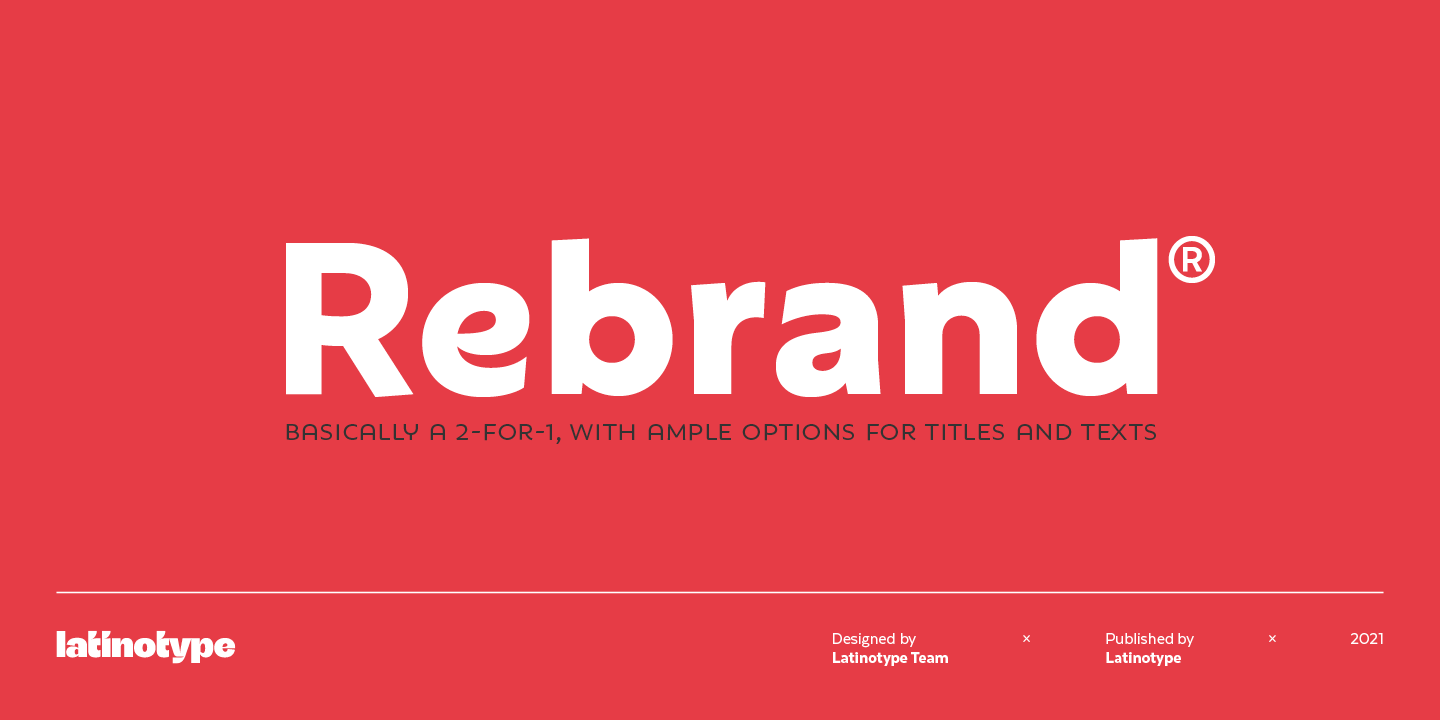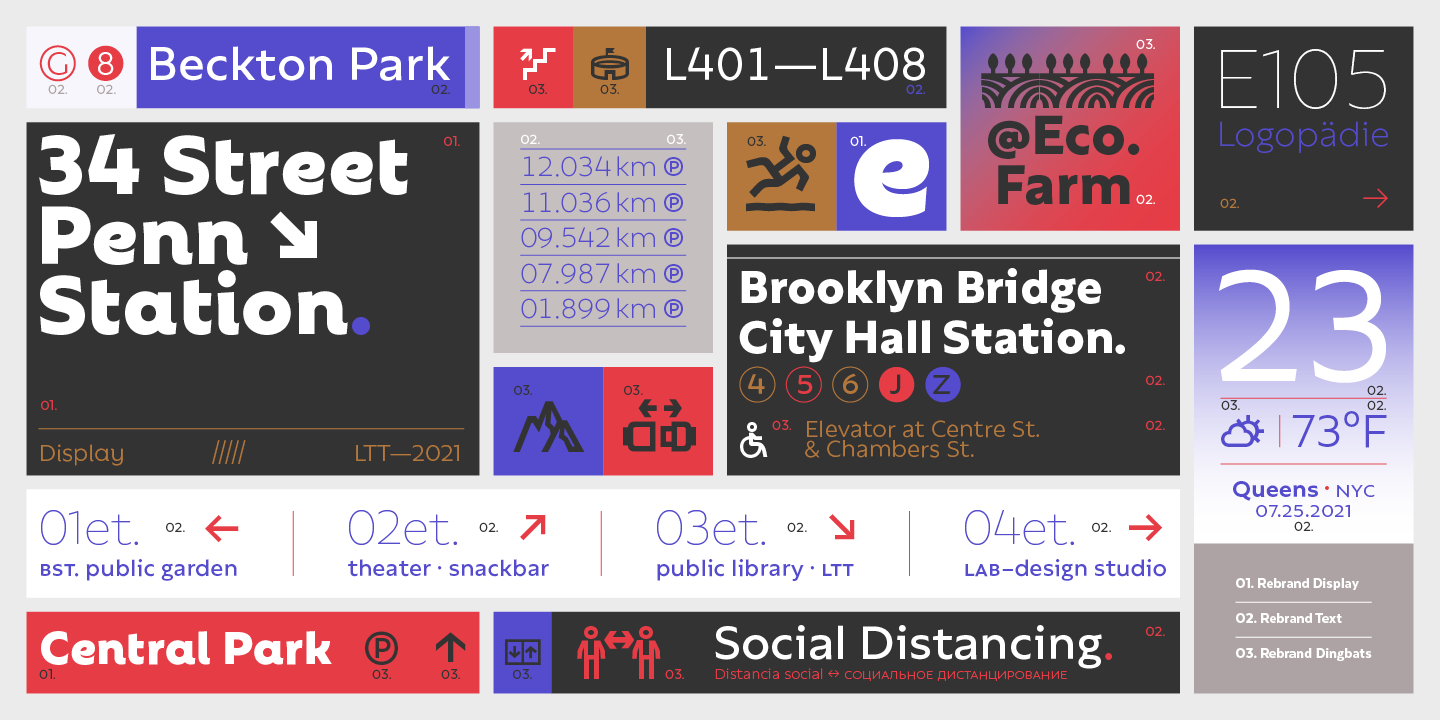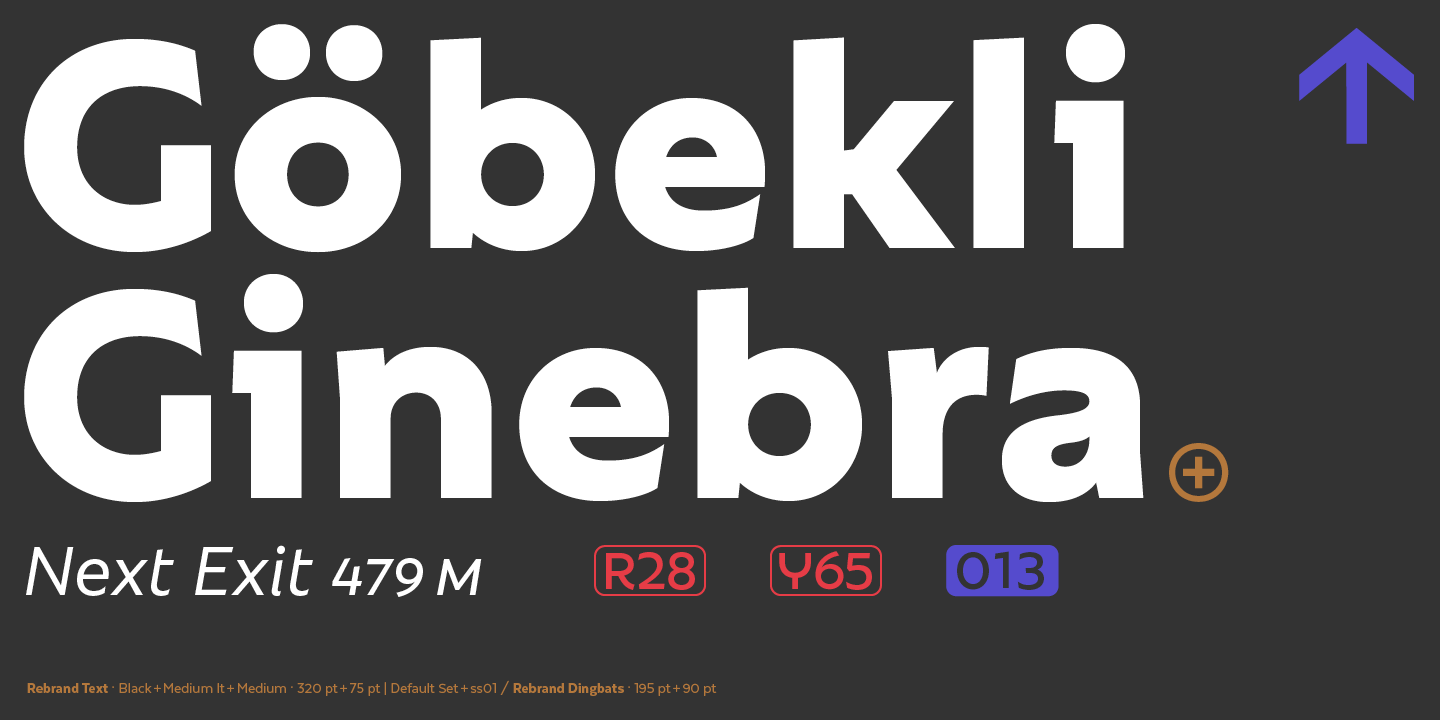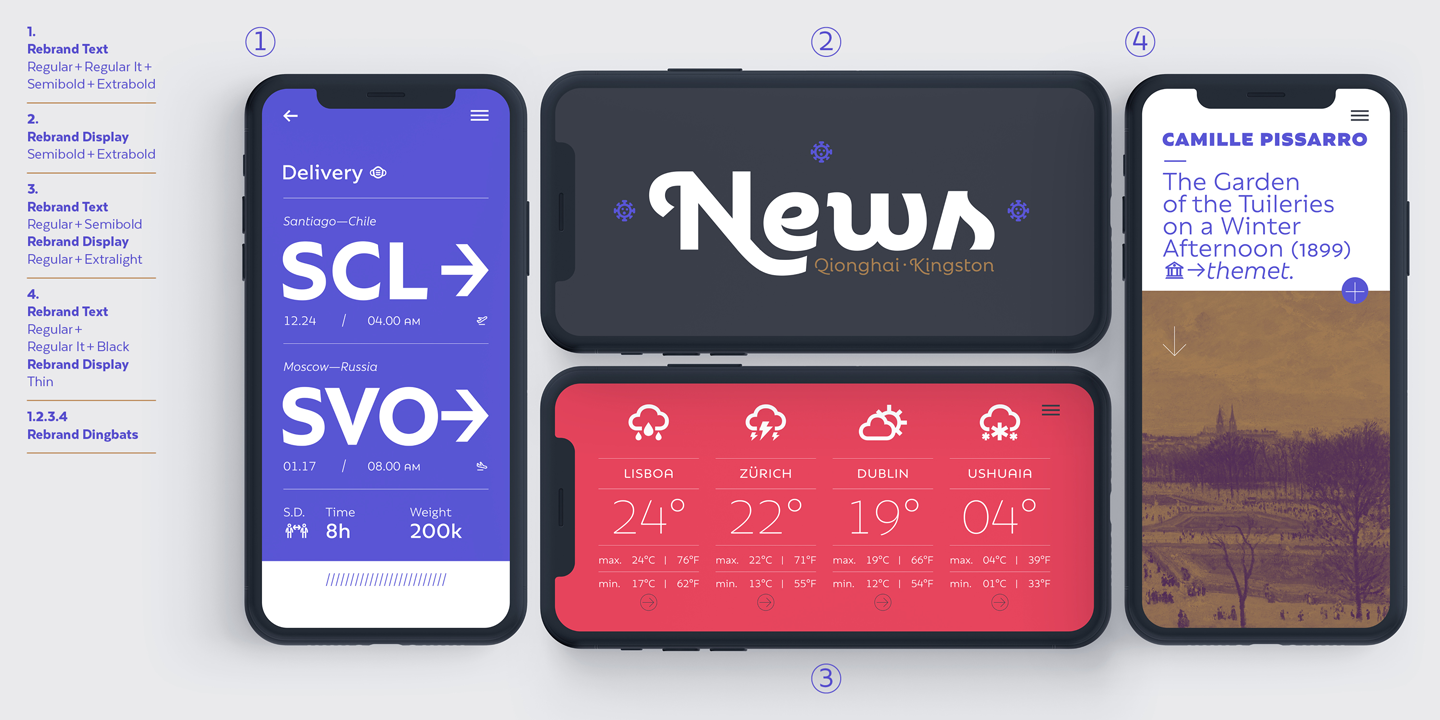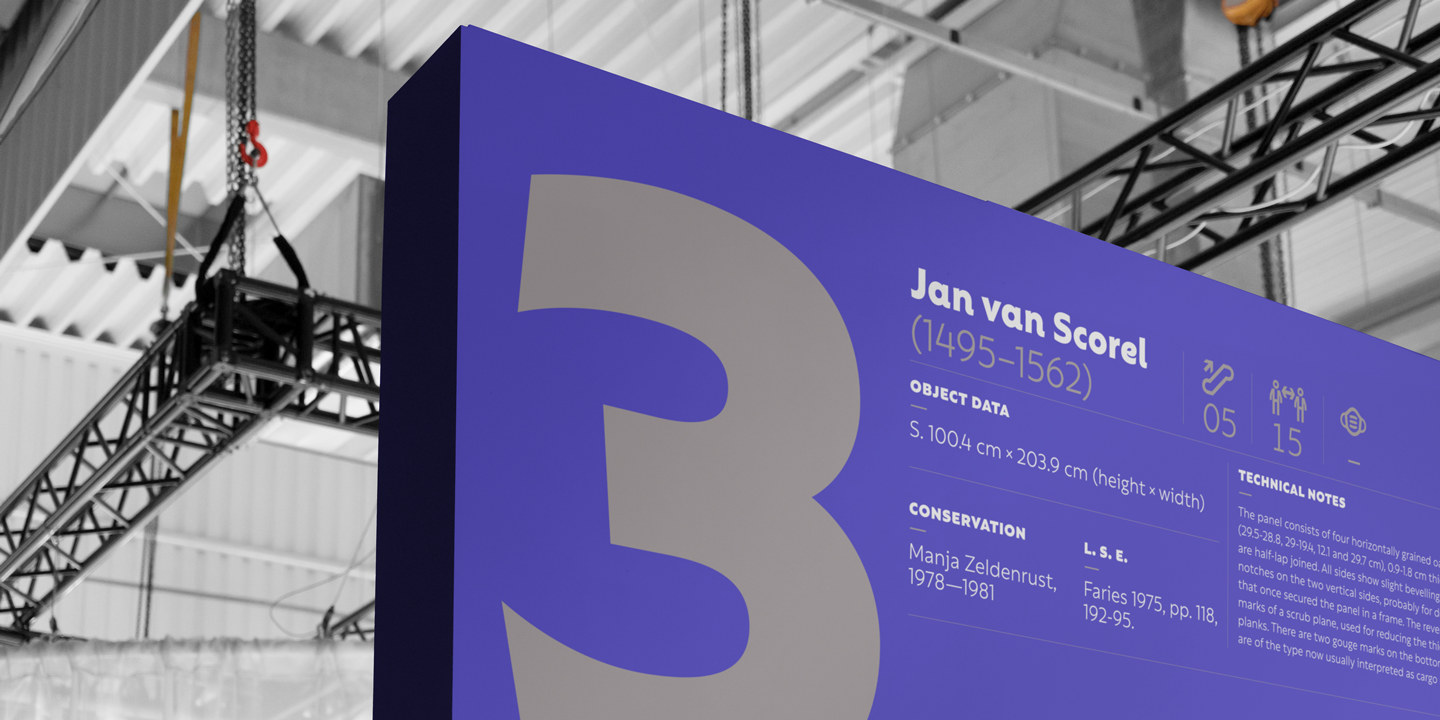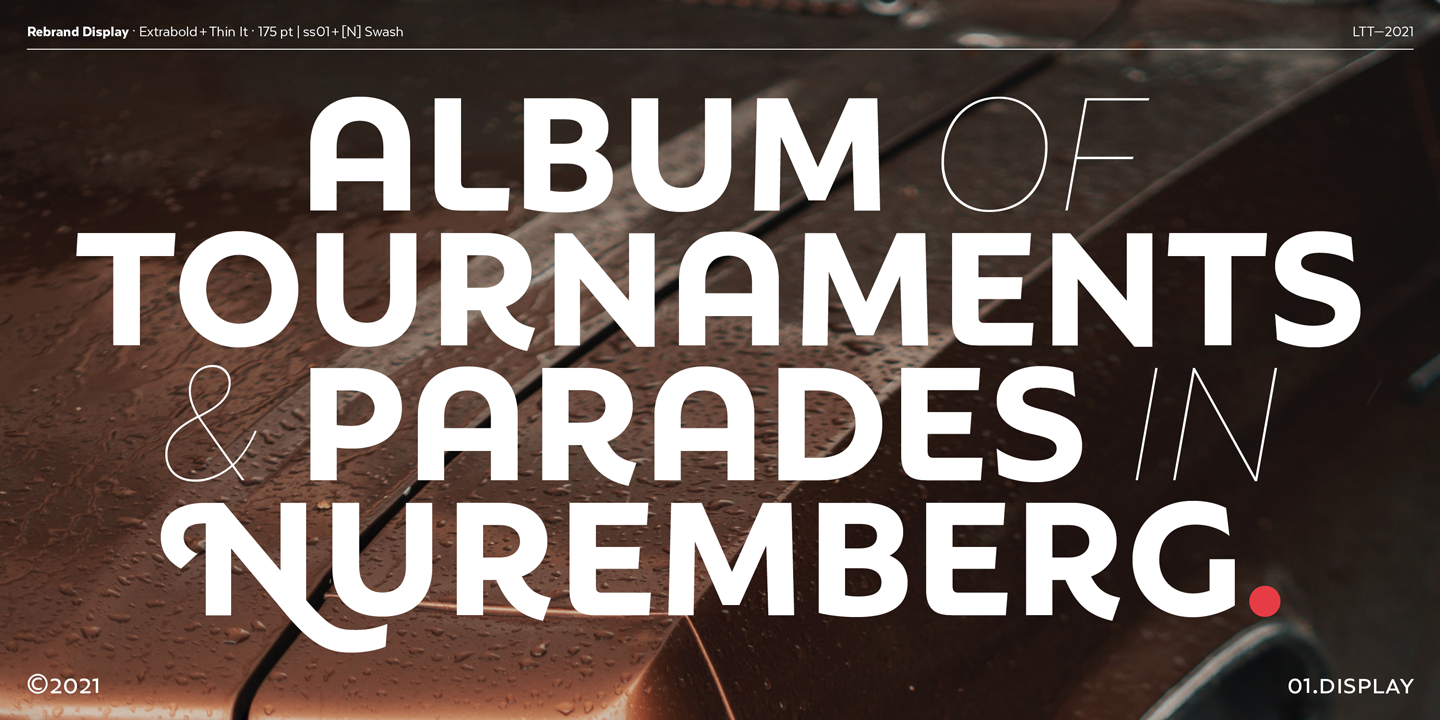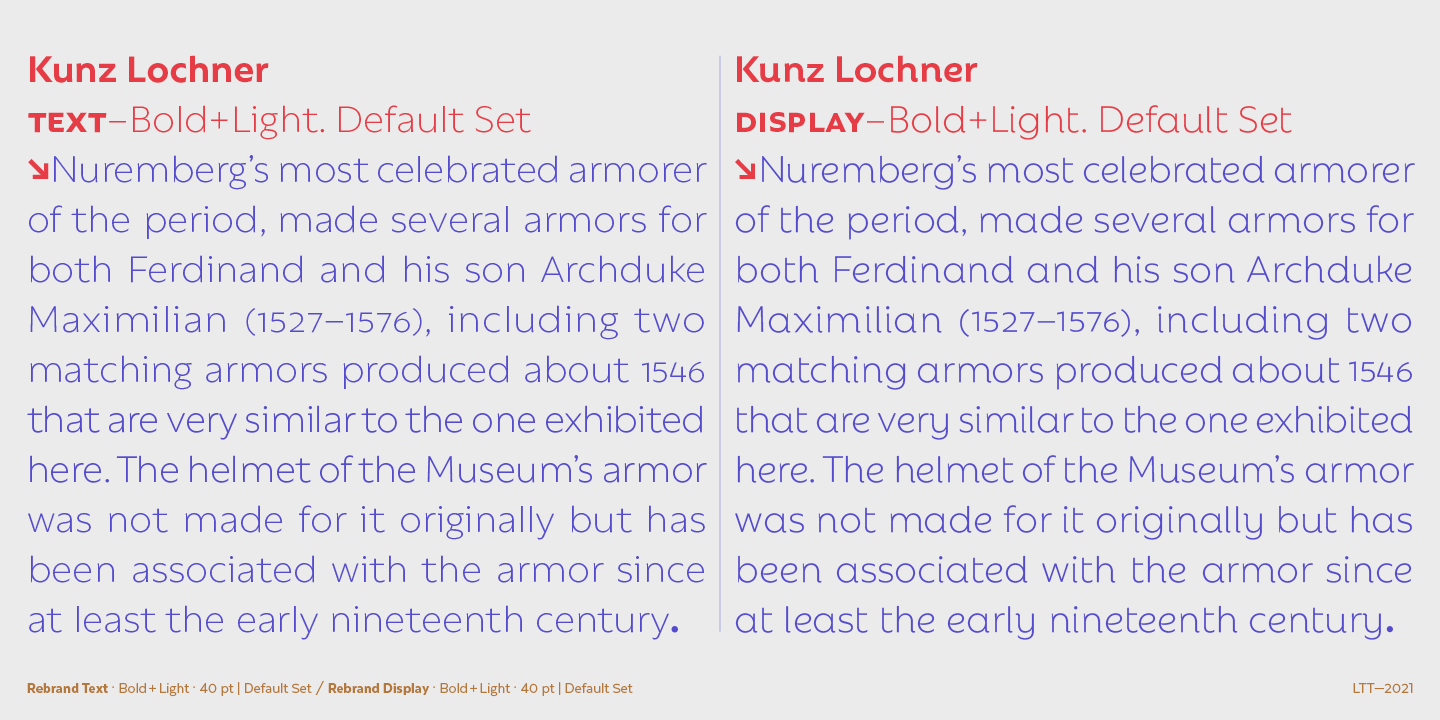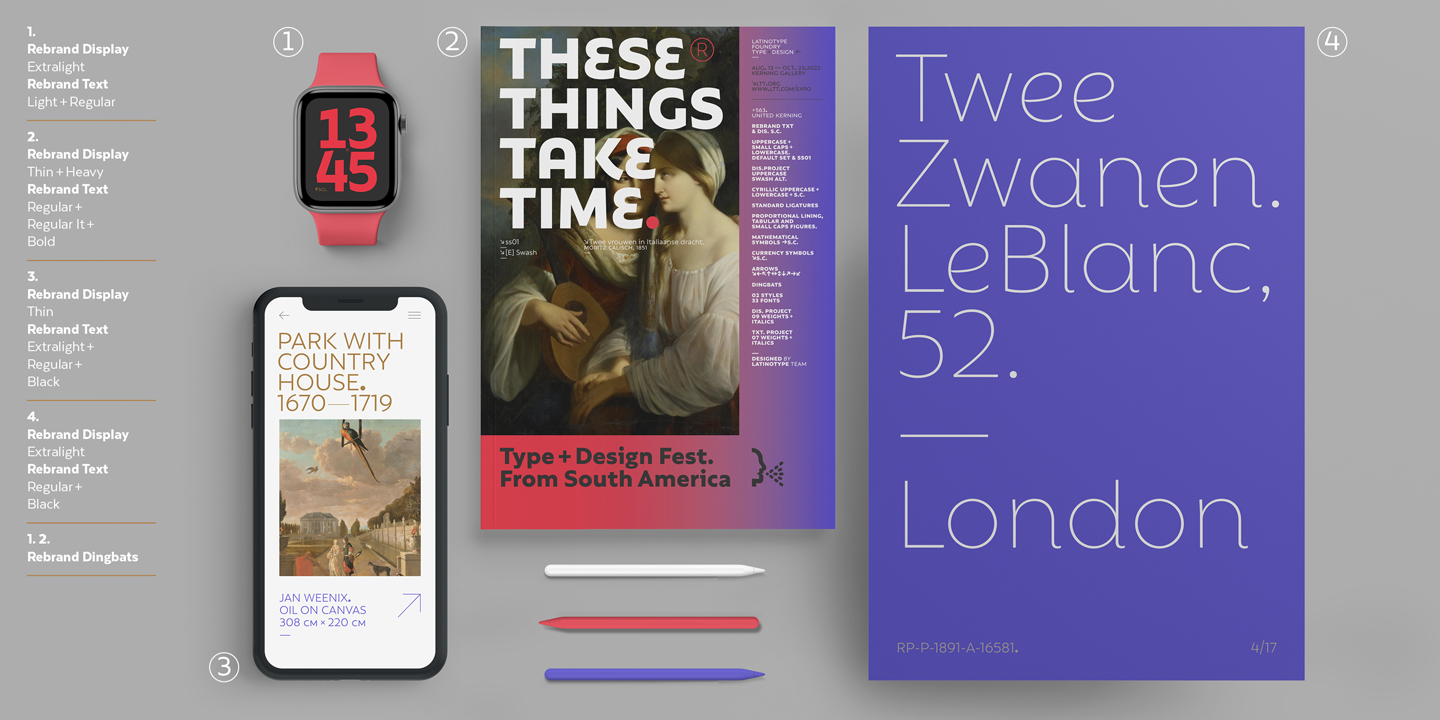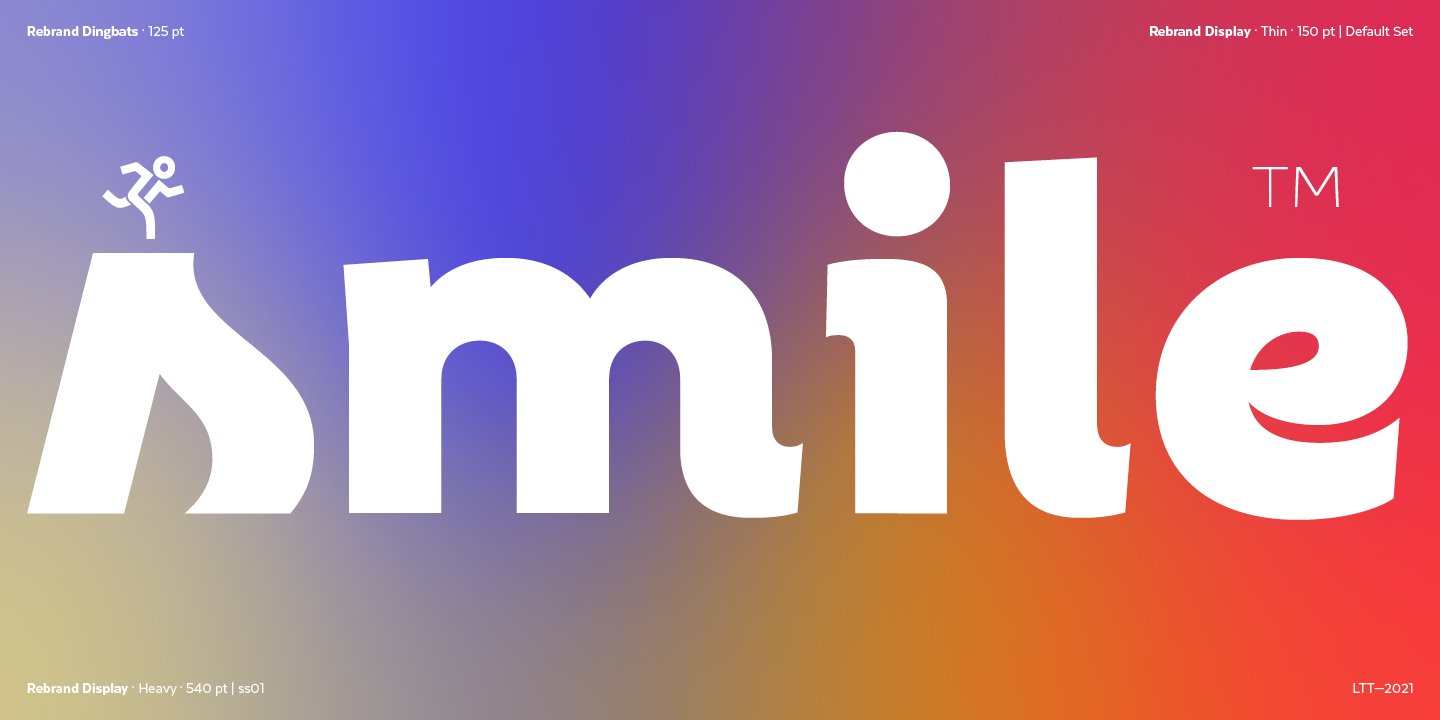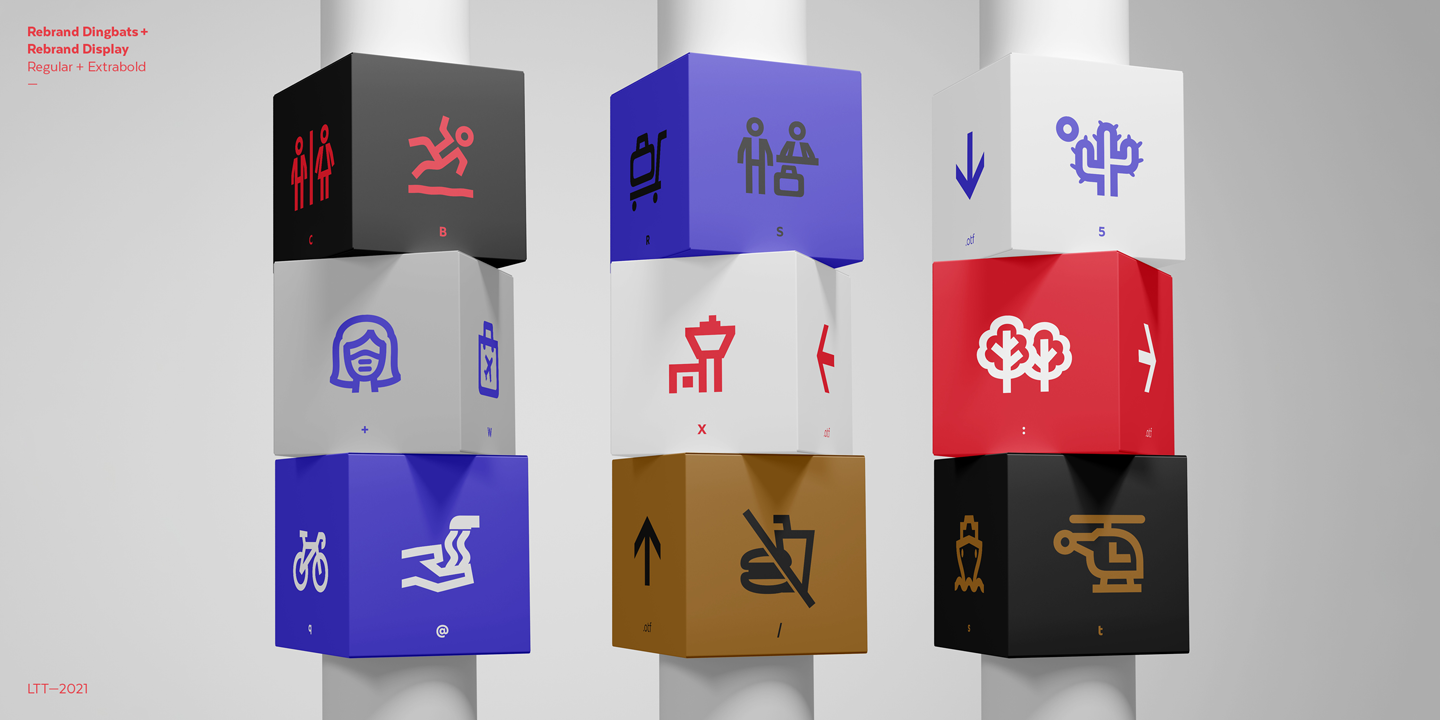
The goal with Rebrand is to offer a Geometric Sans Serif font that can work in various instances, from symbols and titles, to text, and everything in between. It also creates a whole lot of personality, ideal for branding.
There are two versions:
Display, which is more fluid and dynamic with nine programmed weights for a wide array of intensity. This version also has various alternative characters and swashes.
Text, which has the same attitude as Display, but is a little more serious with seven programmed weights to provide distinctive extremes and subtle variations among the mid-tones.
Both cover basic Cyrillic and come in small caps. Both create one phenomenal typography: Rebrand.